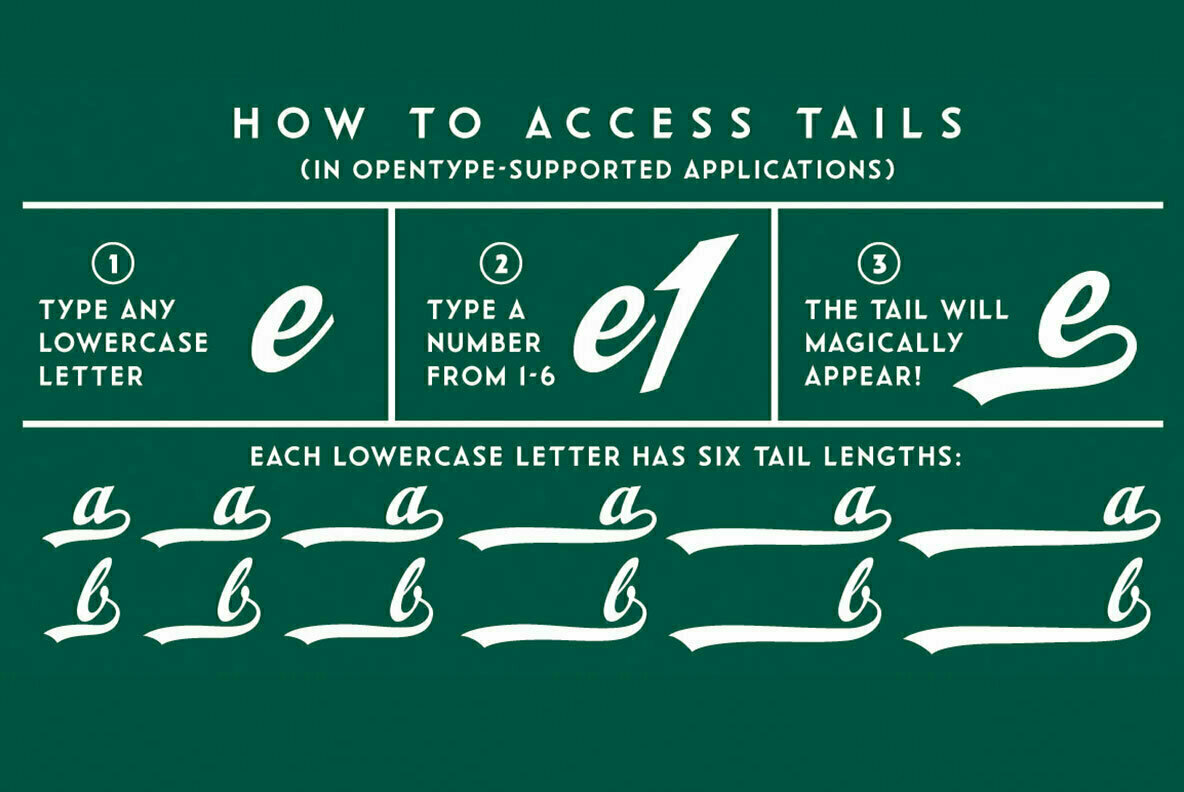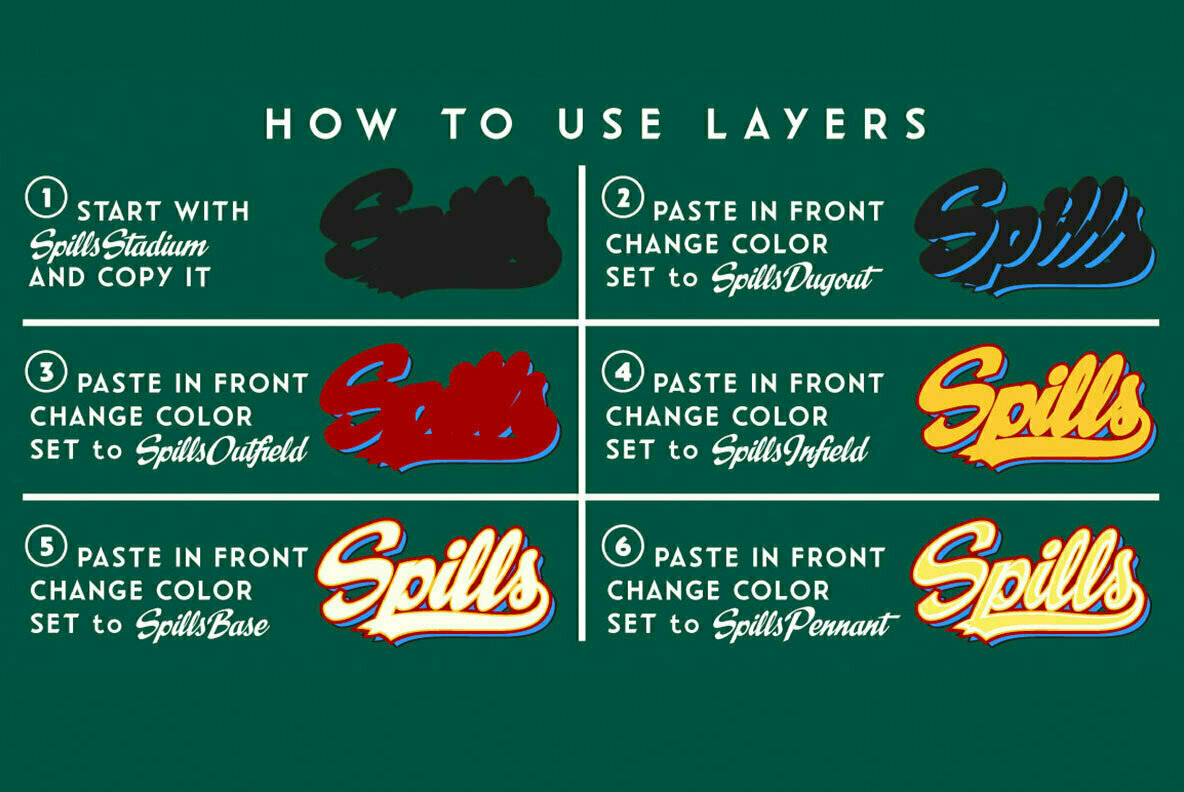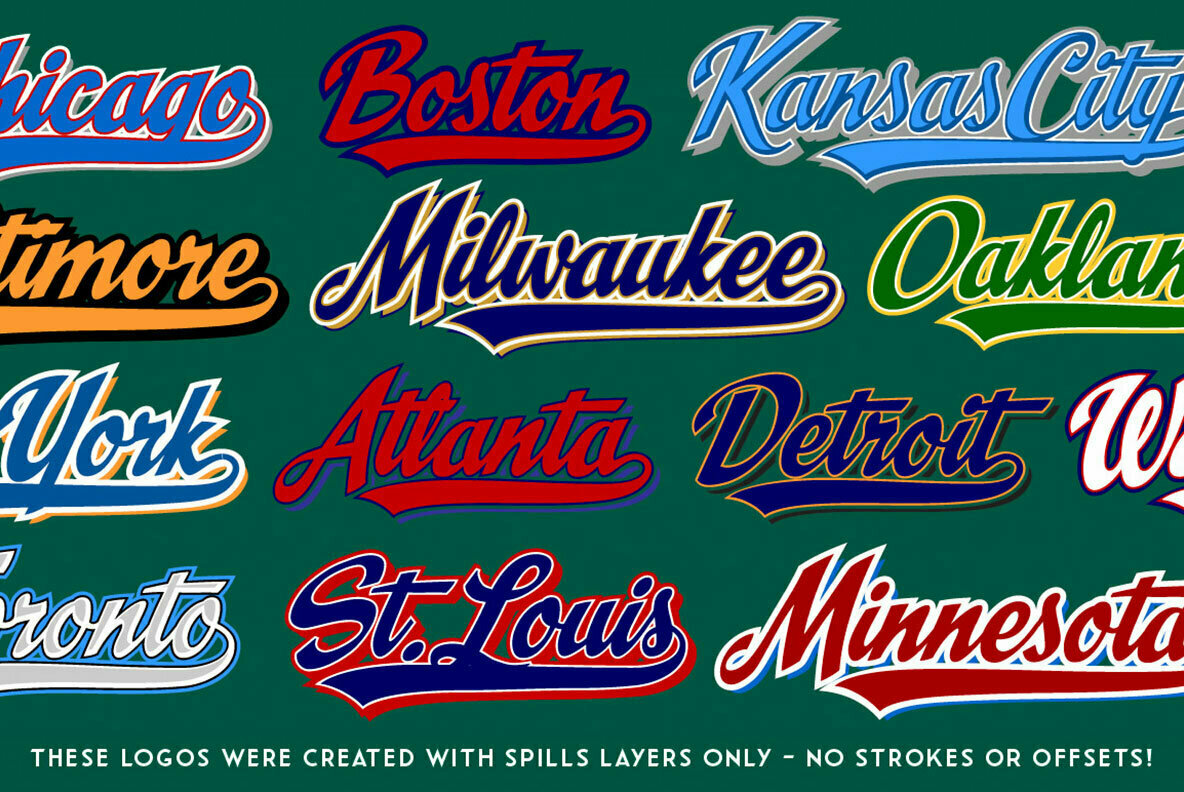
Spills Font
The infield dirt is raked, the outfield grass is mowed and the baselines chalked. So grab a beer, smother a stadium dog with mustard and relish, and take a seat on the bleachers -- SPILLS is about to take the field! This team of letters works in perfect tandem to create superbly scripted logos and titles with fancy underlined flair! Peanuts and Crackerjack not included.